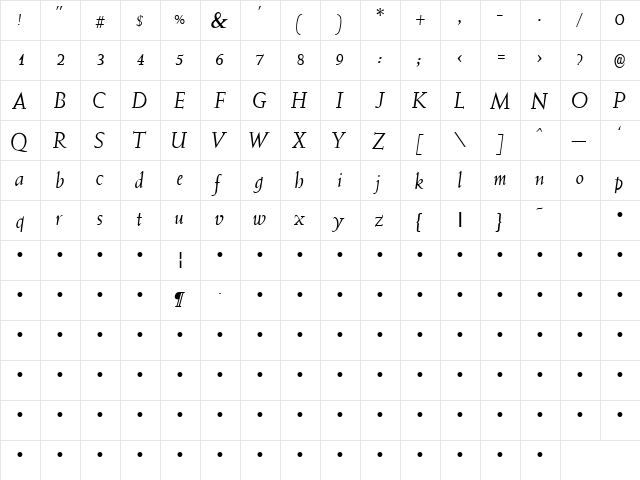
QTWeise Italic
Design Context for QTWeise Typeface
QTWeise offers clean, dependable letterforms without strong stylistic allegiance, making it a practical choice for designers who need flexibility. Its italic angle brings a sense of urgency and motion to the letterforms.
Pro Tip: Try QTWeise for annotation and caption copy alongside an upright companion — the contrast in angle creates a dynamic but ordered typographic system.